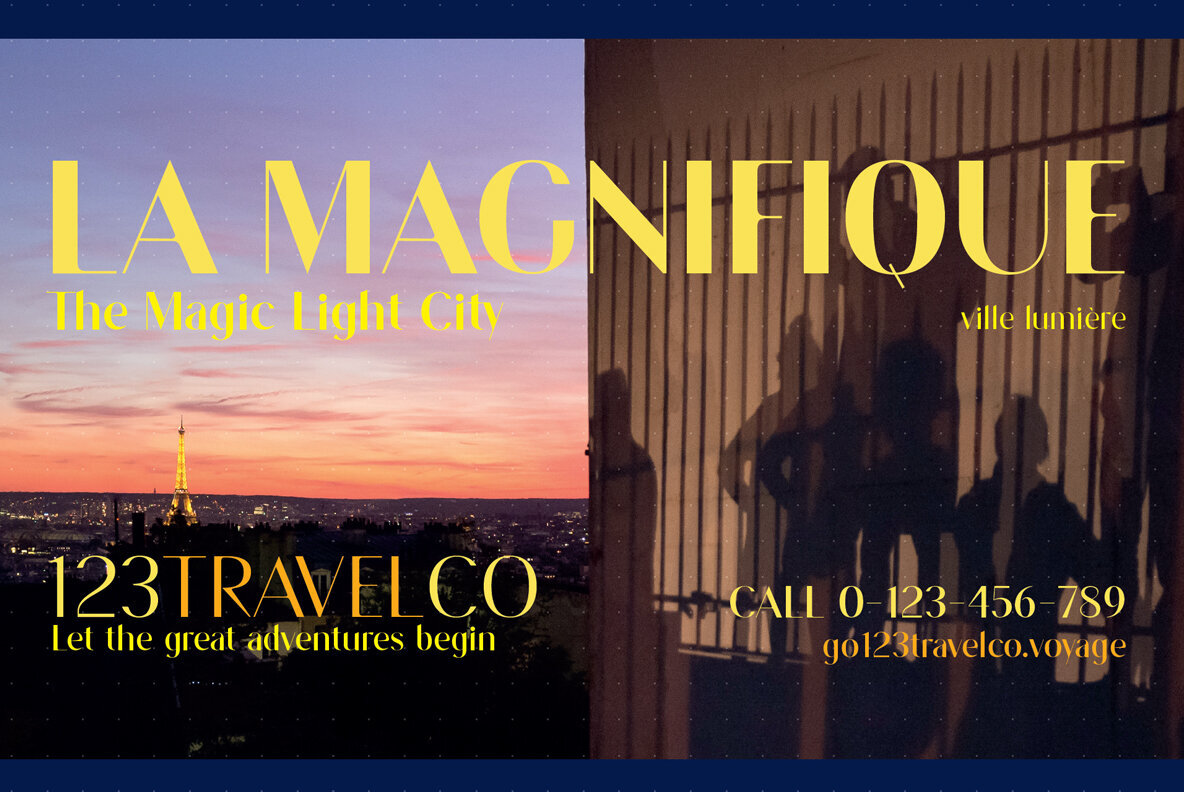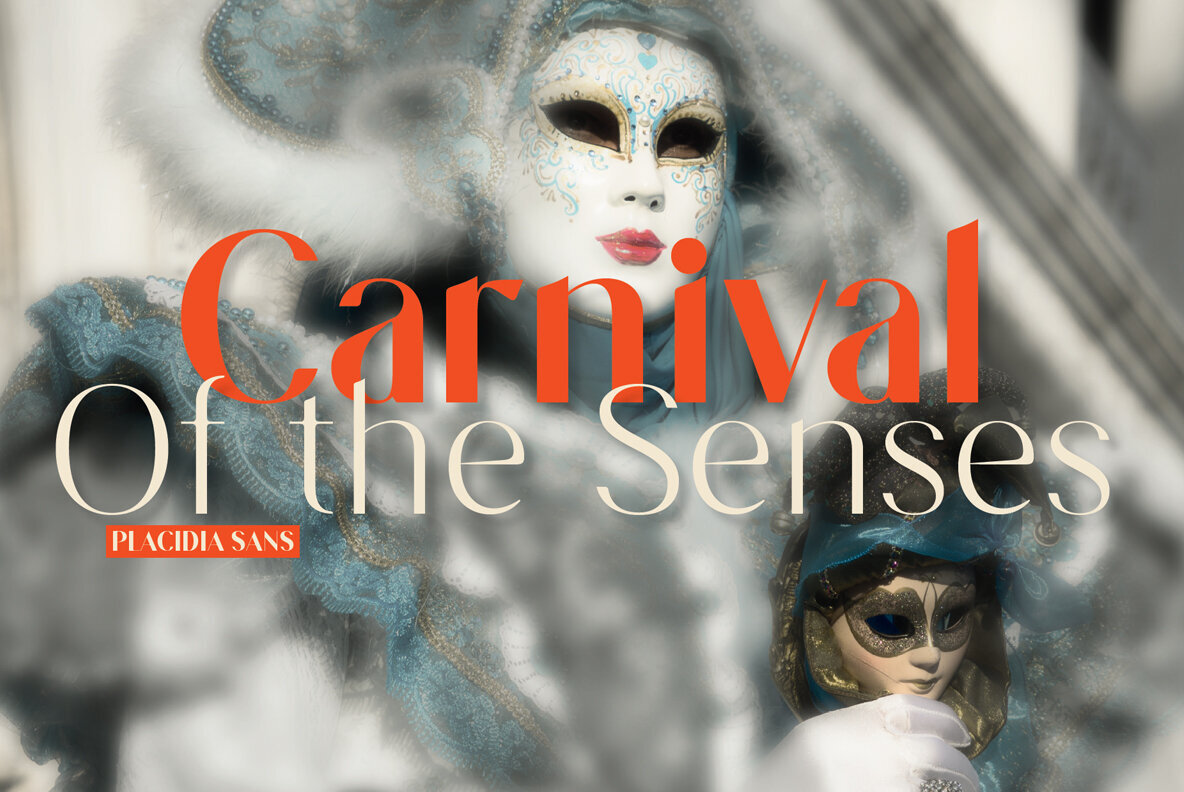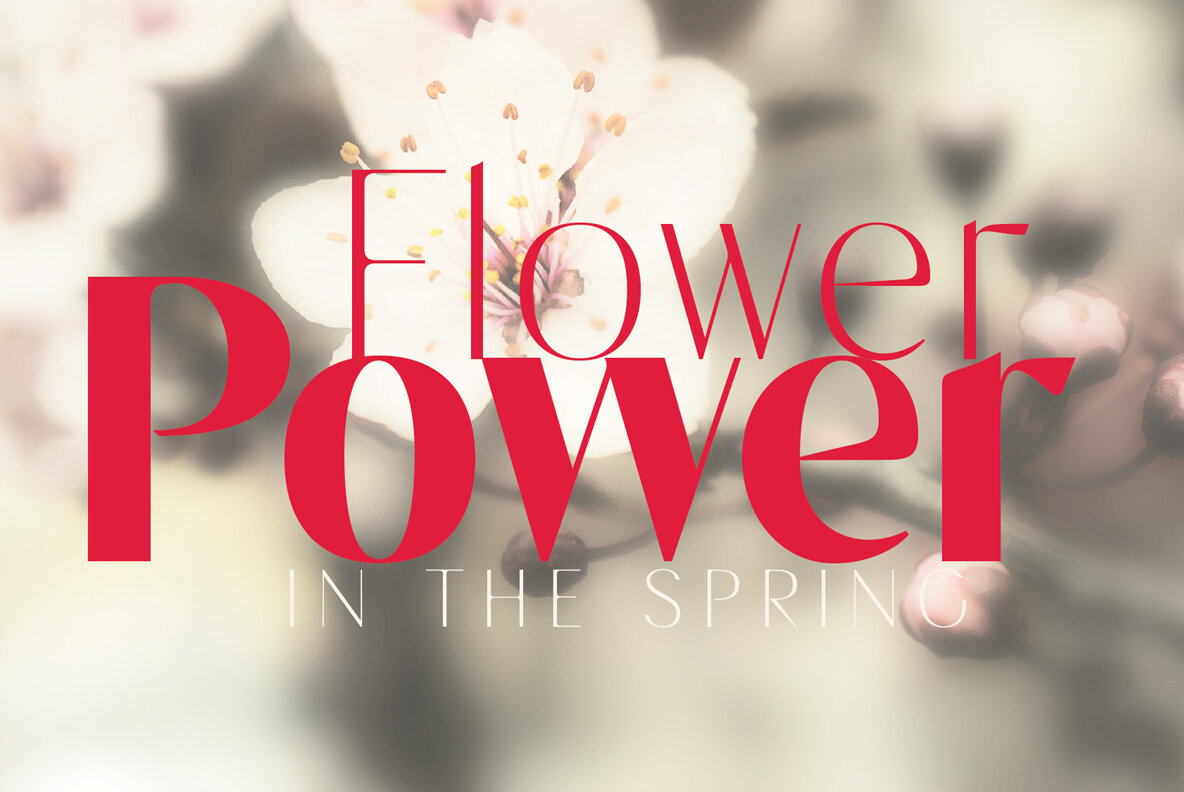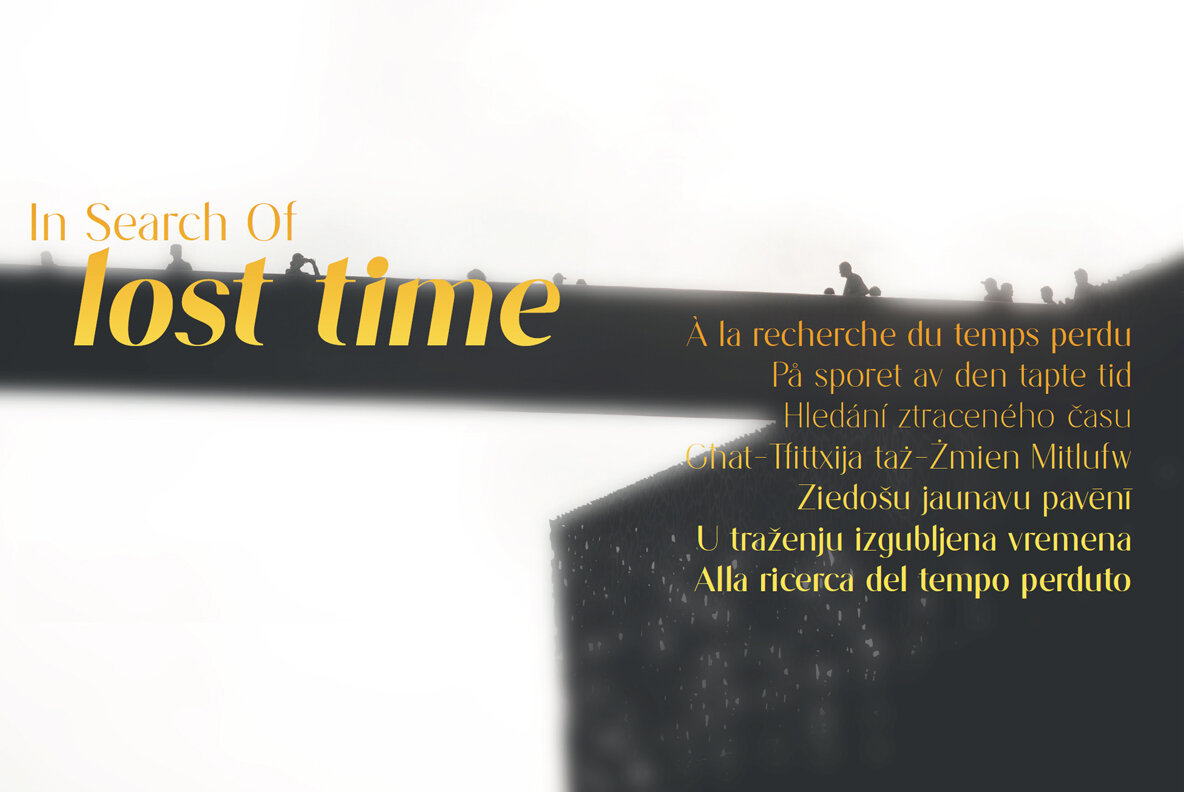
Placidia Sans Font
The Placidia fonts, including the Normal and Display versions, are both elegant and stylish, soft and strong, all the way in weights from thin to extra bold. In other words; a font-family worthy of an empress.
Placidia Sans is intended for use in a variety of settings, basically for all kinds of texts and text sizes, and especially for intros, headings and titles, at medium and large sizes.